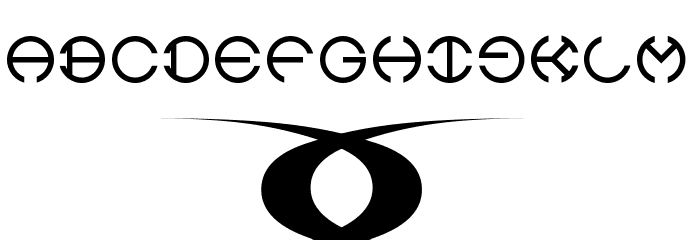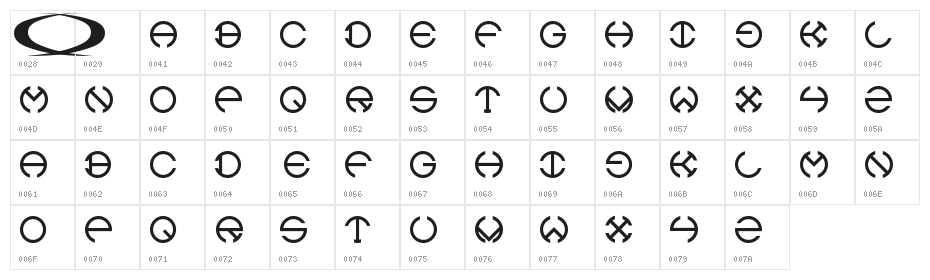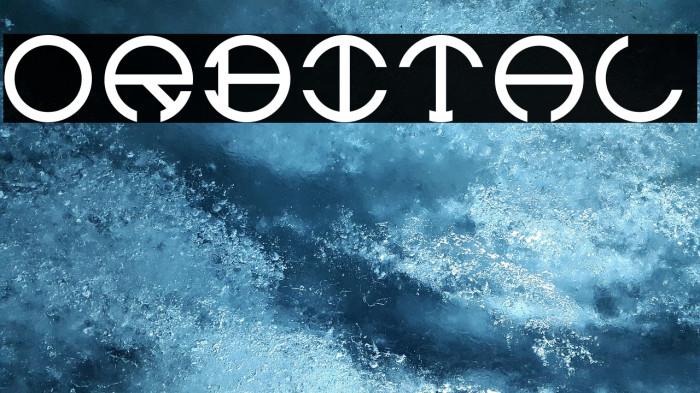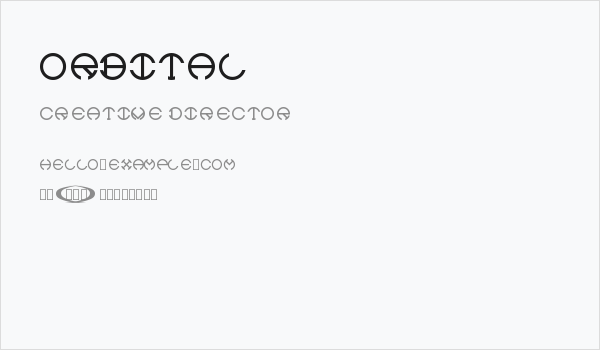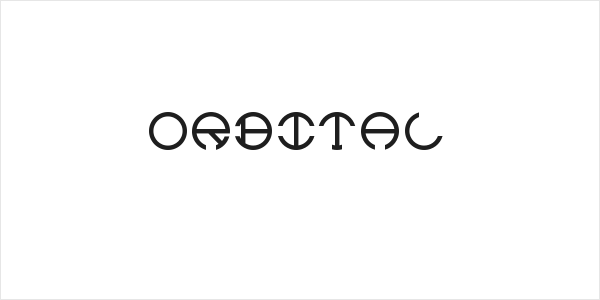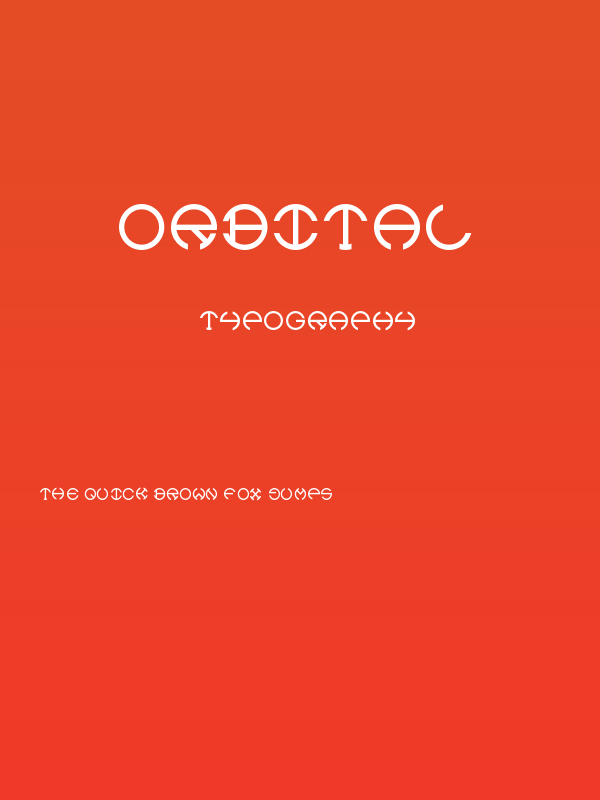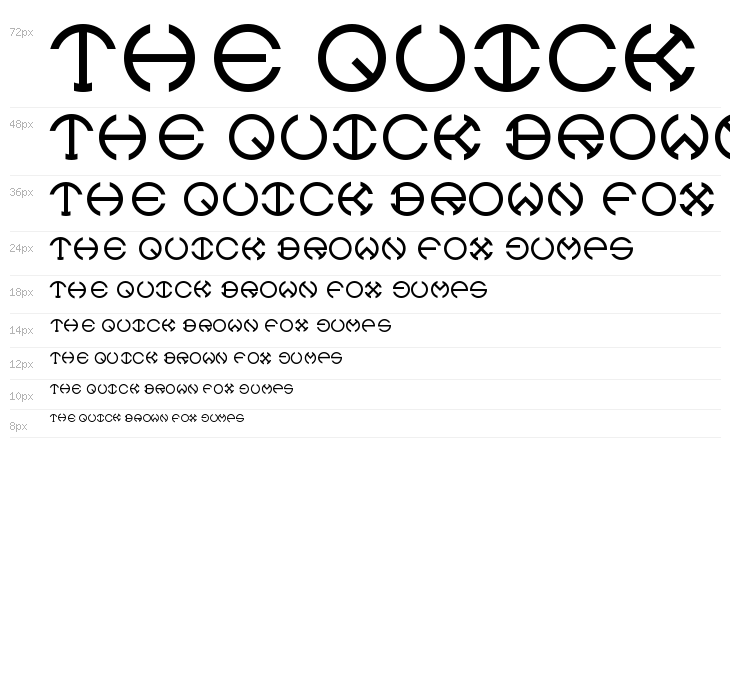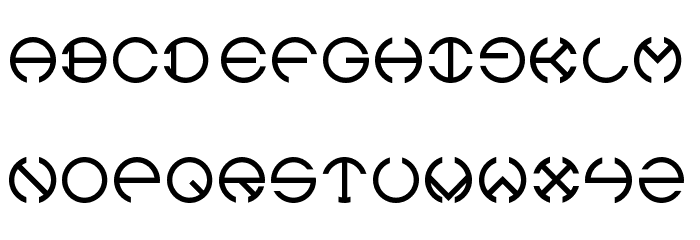
Orbital Font
Orbital Description
This font features a futuristic and geometric design, characterized by its unique circular and angular elements that create a sense of movement and modernity. The letters are crafted with a consistent stroke width, giving it a uniform appearance. The design incorporates symmetrical shapes and sharp angles, making it visually striking and ideal for projects that require a contemporary and innovative look. The font's distinct style is both bold and minimalistic, making it suitable for a variety of creative applications.
| Use Case | Logos, Headlines, Branding |
| Proposed Projects | Ideal for sci-fi themed projects, technology branding, modern logos, and innovative product packaging. |